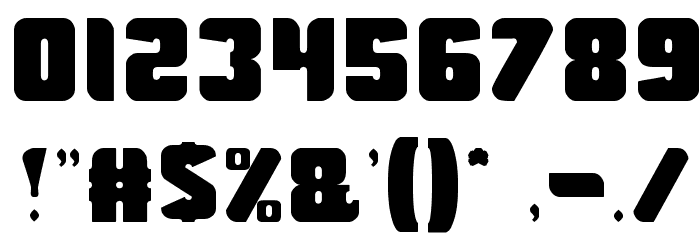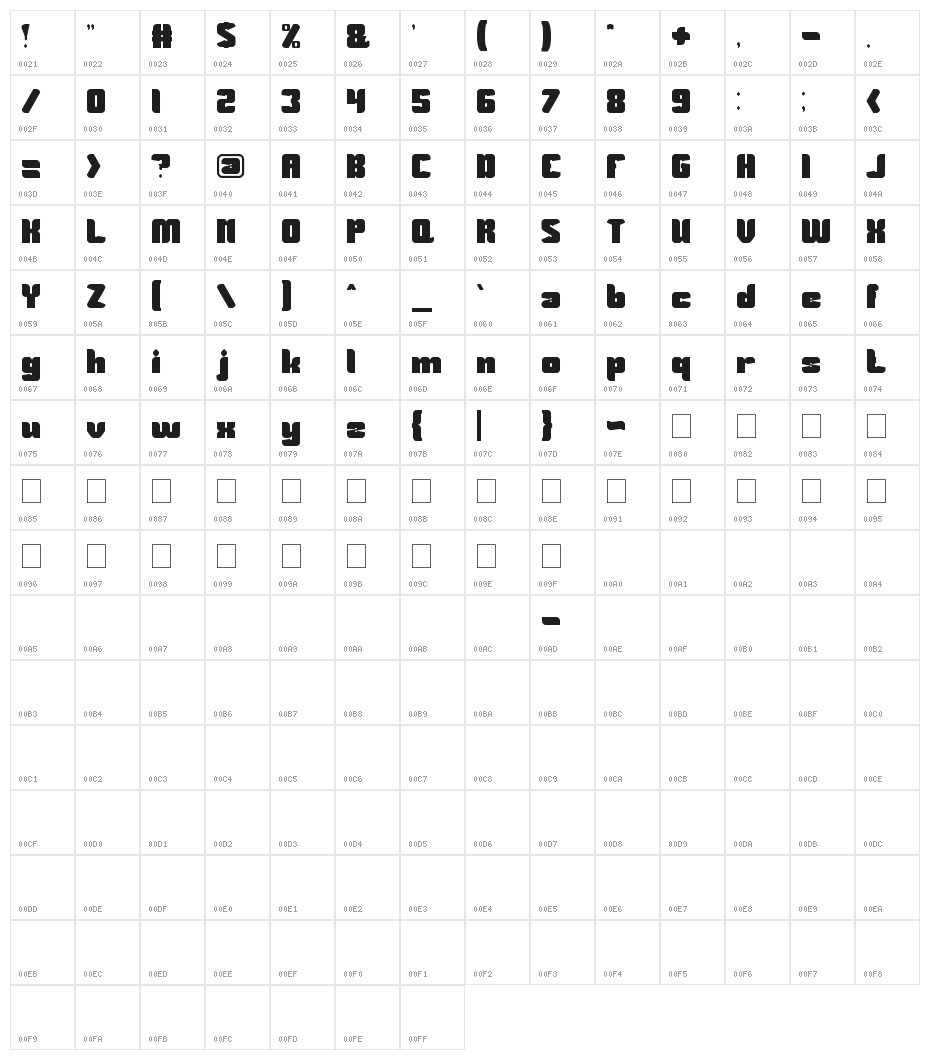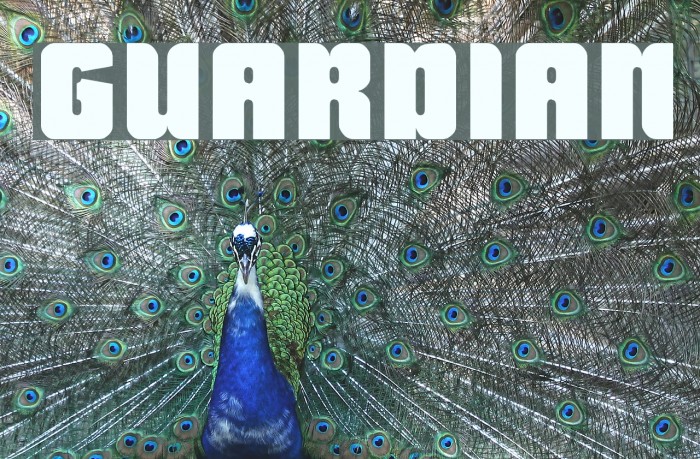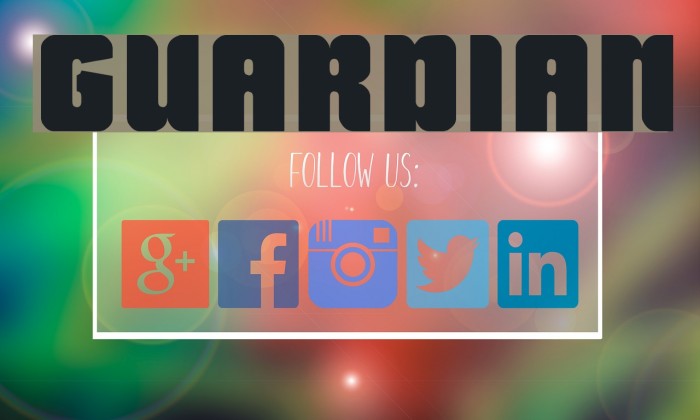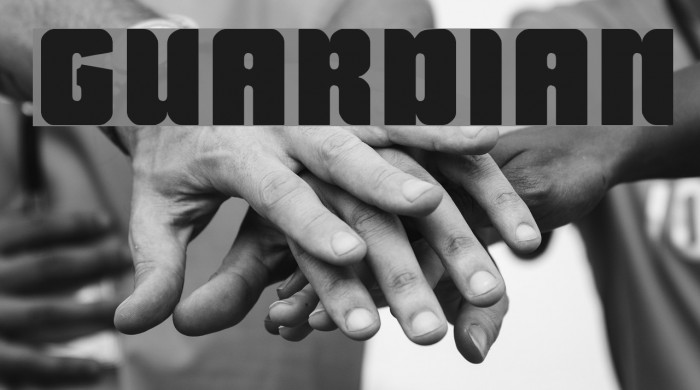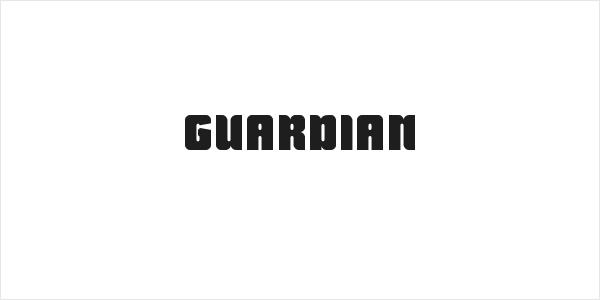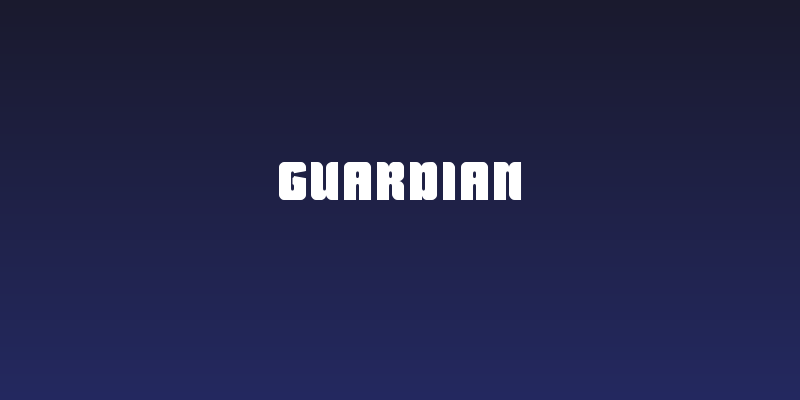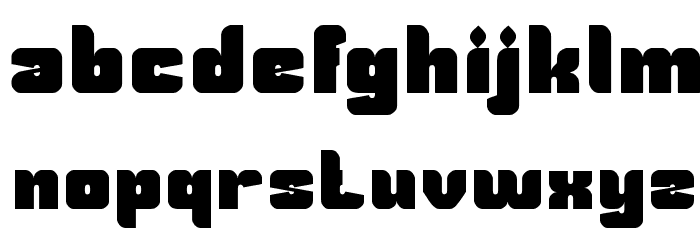
GUARDIAN Font
GUARDIAN Description
This font exhibits a bold and robust design, characterized by thick, blocky letters with minimal curves. The uppercase and lowercase letters maintain a consistent width, creating a uniform appearance. The numerals are equally bold, ensuring clear readability. Special characters are designed to match the overall boldness, contributing to a cohesive look. The font's style is reminiscent of industrial or retro themes, making it suitable for impactful and attention-grabbing designs.
| Overall Style | Retro, Industrial |
| Proposed Projects | Ideal for posters, headlines, logos, and branding materials where a strong, impactful presence is desired. |